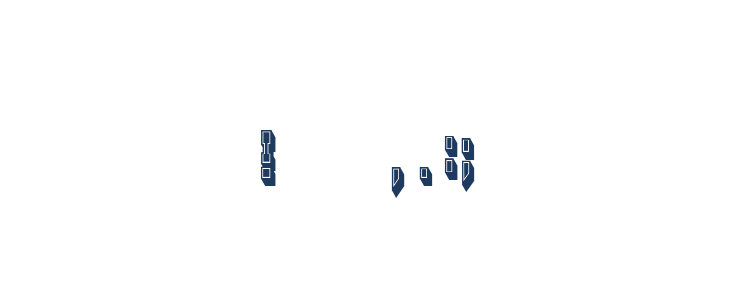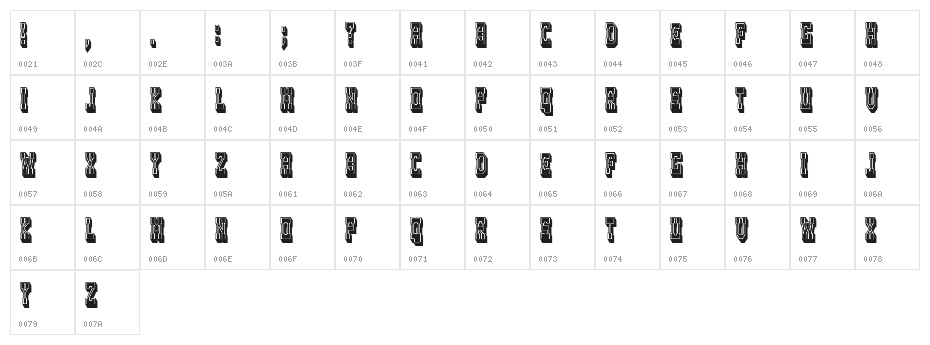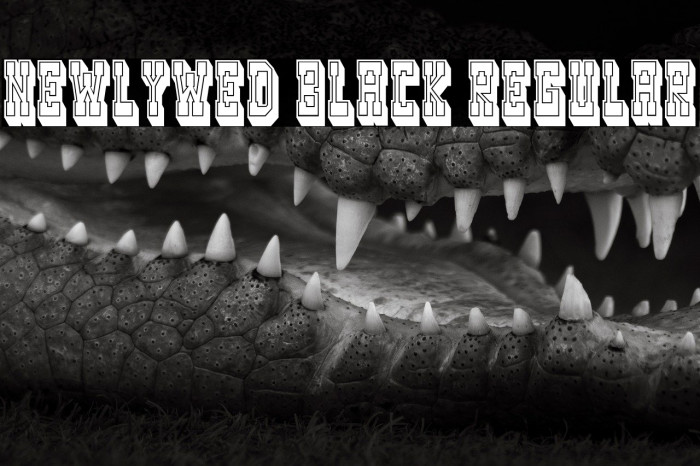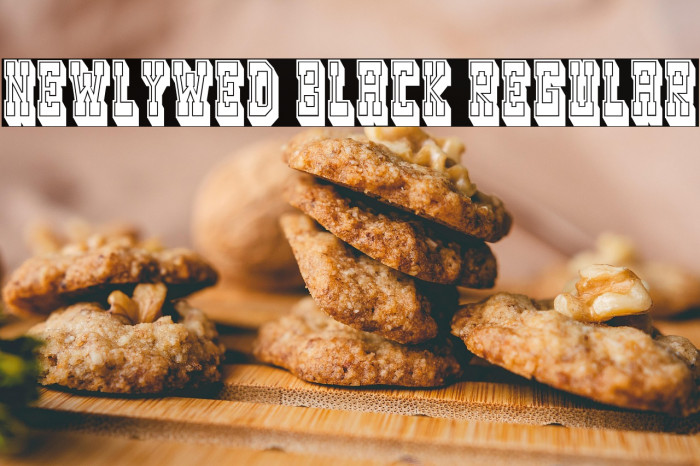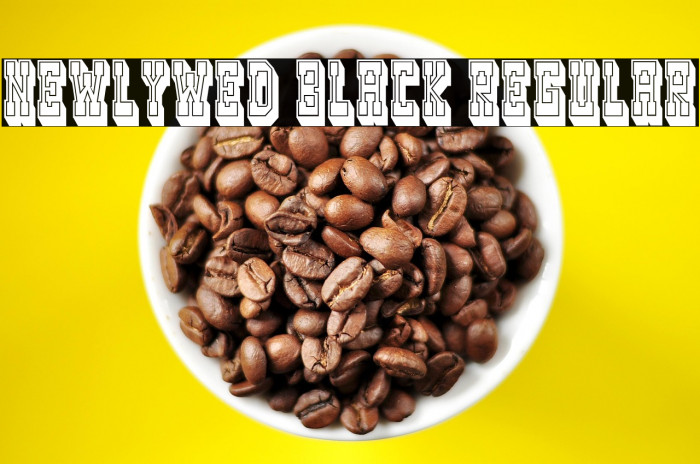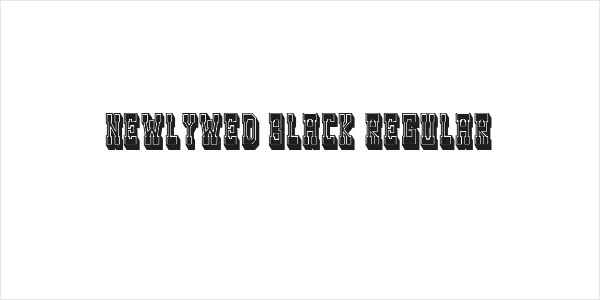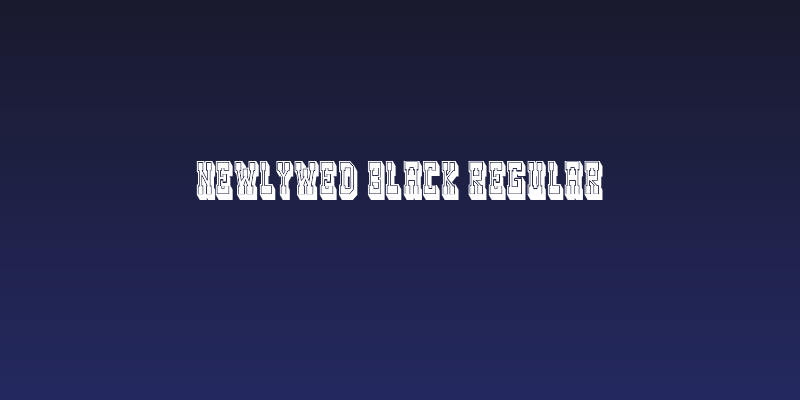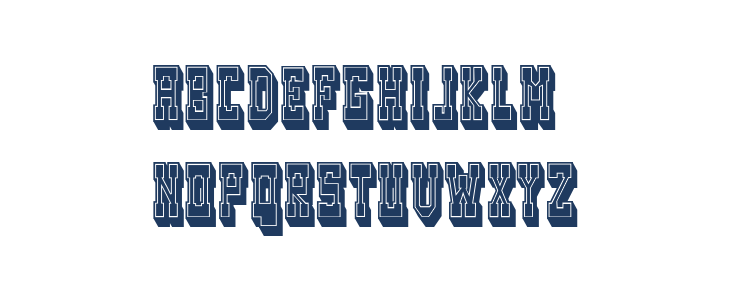
Newlywed Black Regular Font
Newlywed Black Regular Description
This font features a bold, three-dimensional design with a strong, impactful presence. Each character is outlined with a thick black shadow, giving it a striking, embossed appearance. The letters are uppercase only, with a geometric, blocky style that conveys a sense of strength and stability. The font's design is reminiscent of vintage signage or retro poster art, making it ideal for creating eye-catching headlines or titles. Its boldness and depth make it unsuitable for body text but perfect for projects that require a dramatic and attention-grabbing typeface.
| Proposed Projects | Ideal for posters, logos, signage, and any project needing a bold, retro aesthetic. |